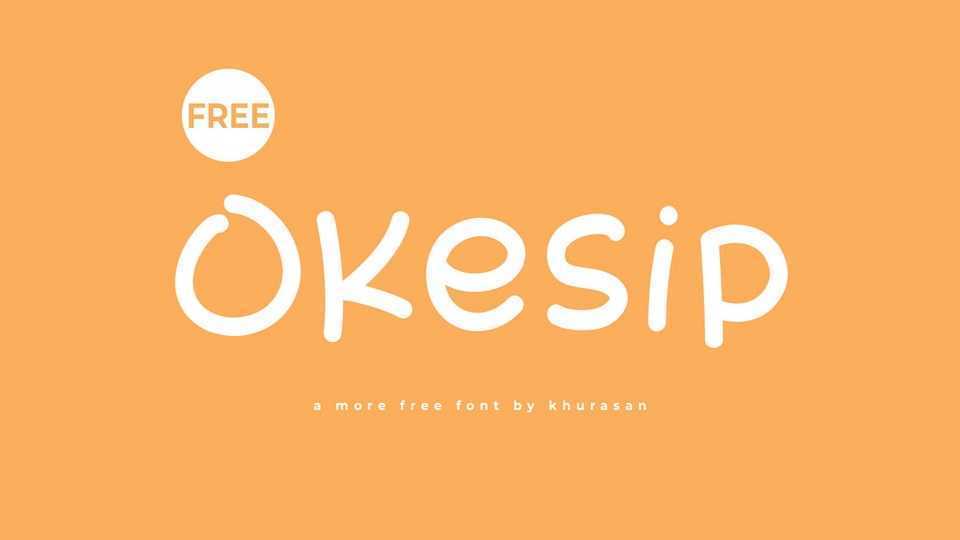
Download Okesip font, a playful and cute hand-drawn comic typeface that bursts with character and joy. It features whimsical, irregular letterforms with lively curves and charming details, capturing the spontaneous fun of a comic strip.